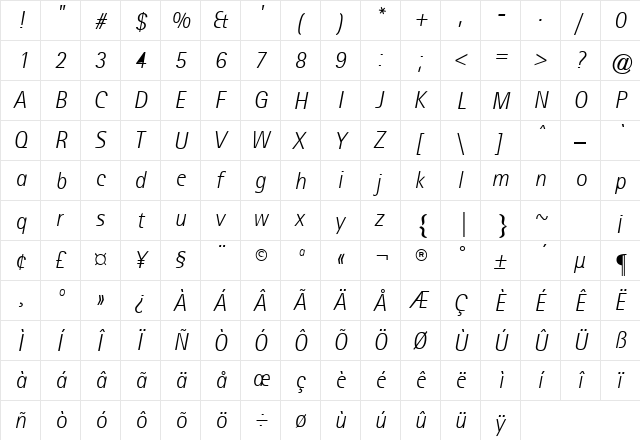
ATRotSanSerLigIta Regular Font Preview
ATRotSanSerLigIta Regular
Design Context for ATRotSanSerLigIta Typeface
ATRotSanSerLigIta offers clean, dependable letterforms without strong stylistic allegiance, making it a practical choice for designers who need flexibility.